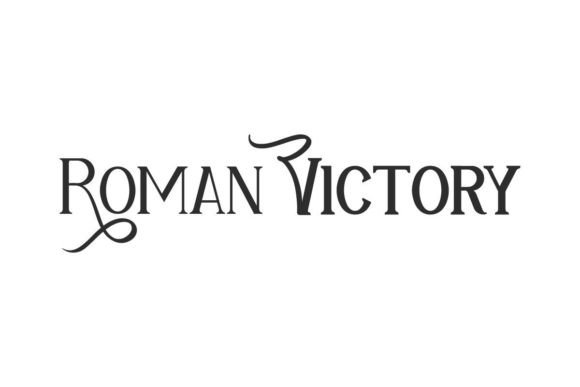
Dive into the world of captivating typography with Roman Victory, a premium serif font that exudes elegance and sophistication. This remarkable creation by NihStudio is the ultimate choice for designers seeking to make a lasting impression.
Unleash your creativity and elevate your designs with Roman Victory, the font that transforms ordinary words into captivating works of art. Its smooth curves and refined details add a touch of grace and luxury to any project, leaving a lasting impact on your audience.
With Roman Victory, versatility knows no bounds. Whether you're crafting stunning menu templates, designing enchanting invitation cards, creating heartfelt greeting cards, or adding a touch of elegance to decorations, this versatile font has you covered. Its timeless beauty seamlessly complements clothing brands, labels, and a multitude of other projects, ensuring your designs stand out from the crowd.
Roman Victory's PUA encoding unlocks a world of possibilities, allowing you to effortlessly access a diverse range of glyphs and explore unique alternates. These elements provide endless opportunities for customization, enabling you to tailor your designs to perfection. Elevate your projects with a semi-royal look that commands attention and leaves a lasting impression.
Embark on a creative journey with Roman Victory, the font that ignites your imagination and empowers you to produce awe-inspiring designs. Let its sophisticated charm elevate your creations, leaving your audience captivated and yearning for more. Dive into the world of Roman Victory and experience the transformative power of truly exceptional typography.